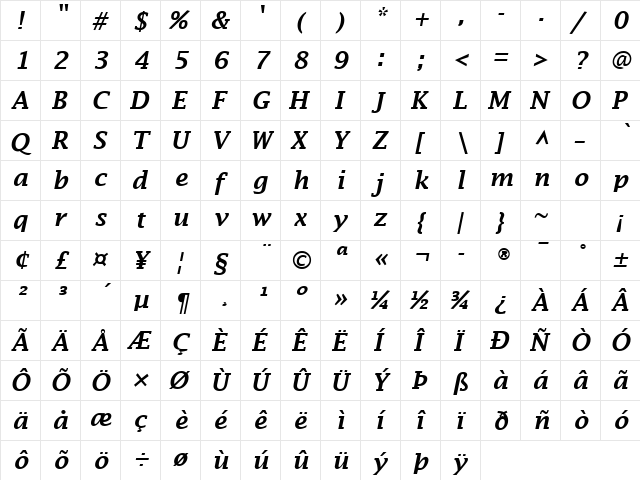
Signs Of Life 1 Demibold Italic
Design Context for Signs Of Life 1 Typeface
Signs Of Life 1 is a composed and adaptable typeface that performs quietly and consistently across a wide range of design contexts. The dynamic lean of this cut emphasises speed and emphasis in any layout. The heavy weight commands attention and anchors typographic hierarchies.
Pro Tip: Use Signs Of Life 1 for emphasis, pull quotes, and subheadings where its slanted energy can add rhythm to the layout.